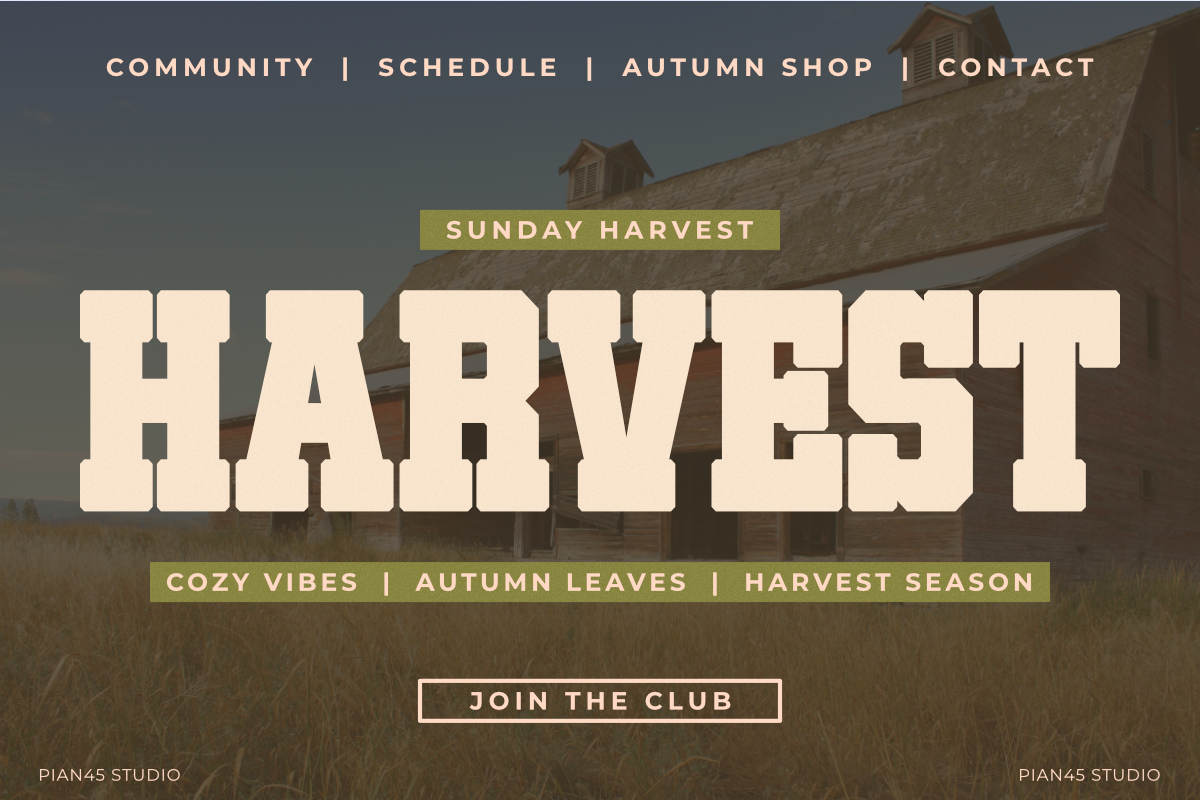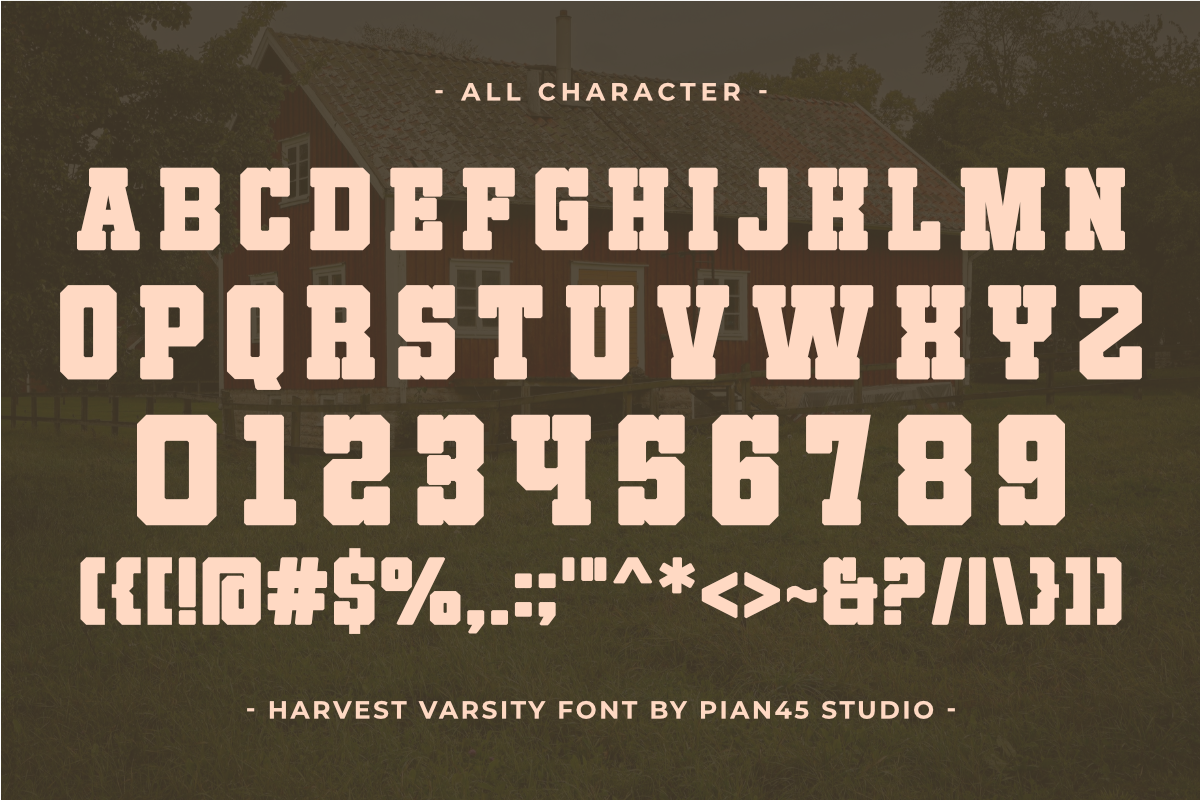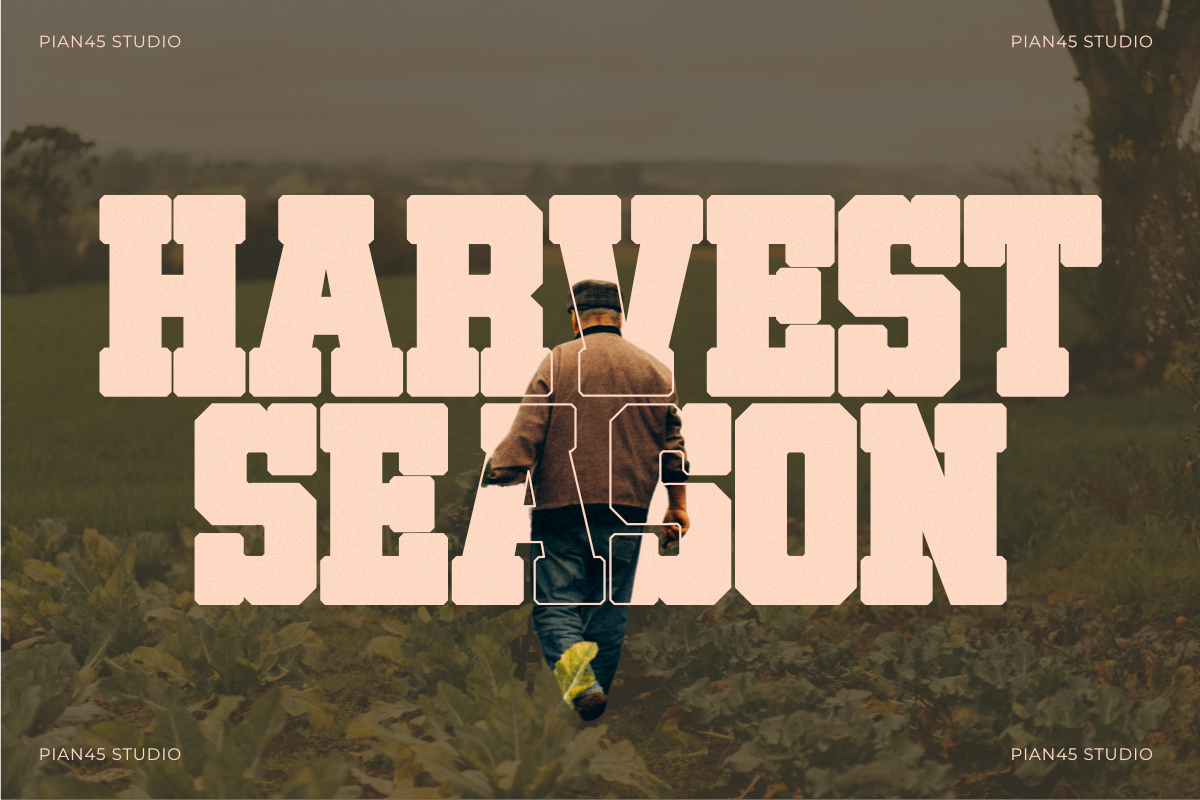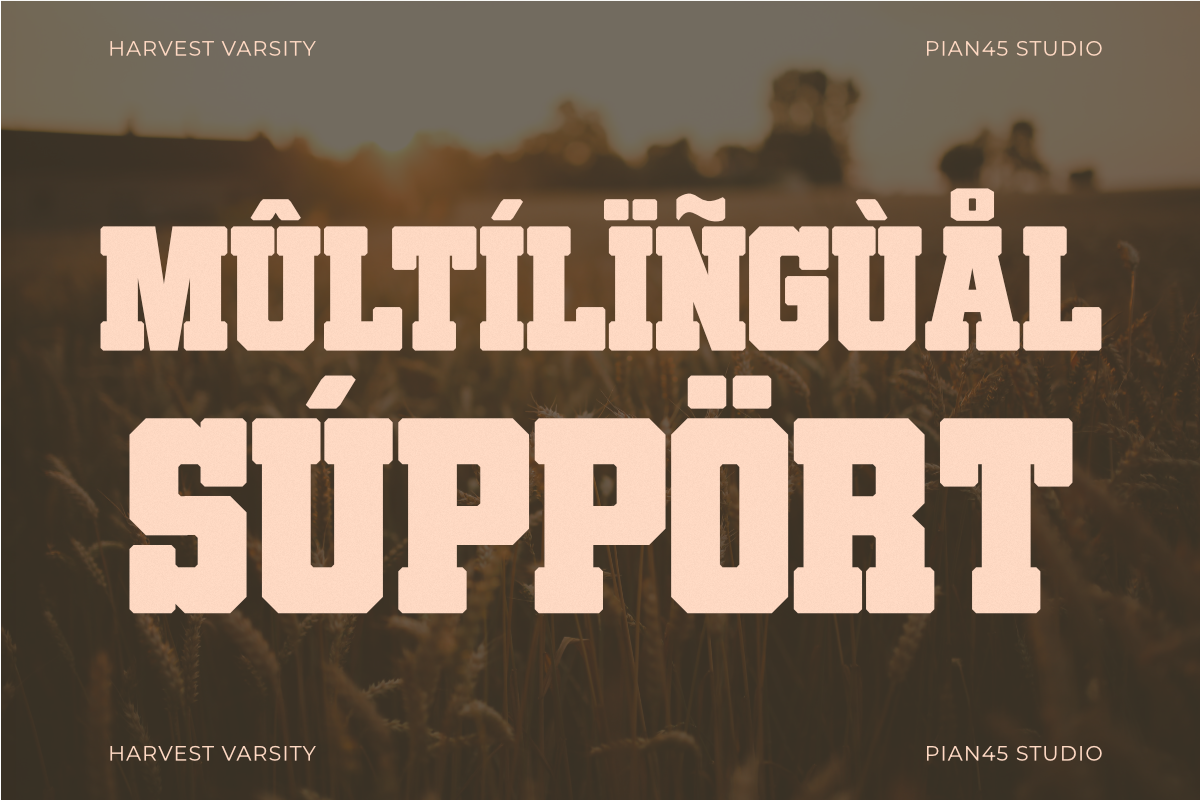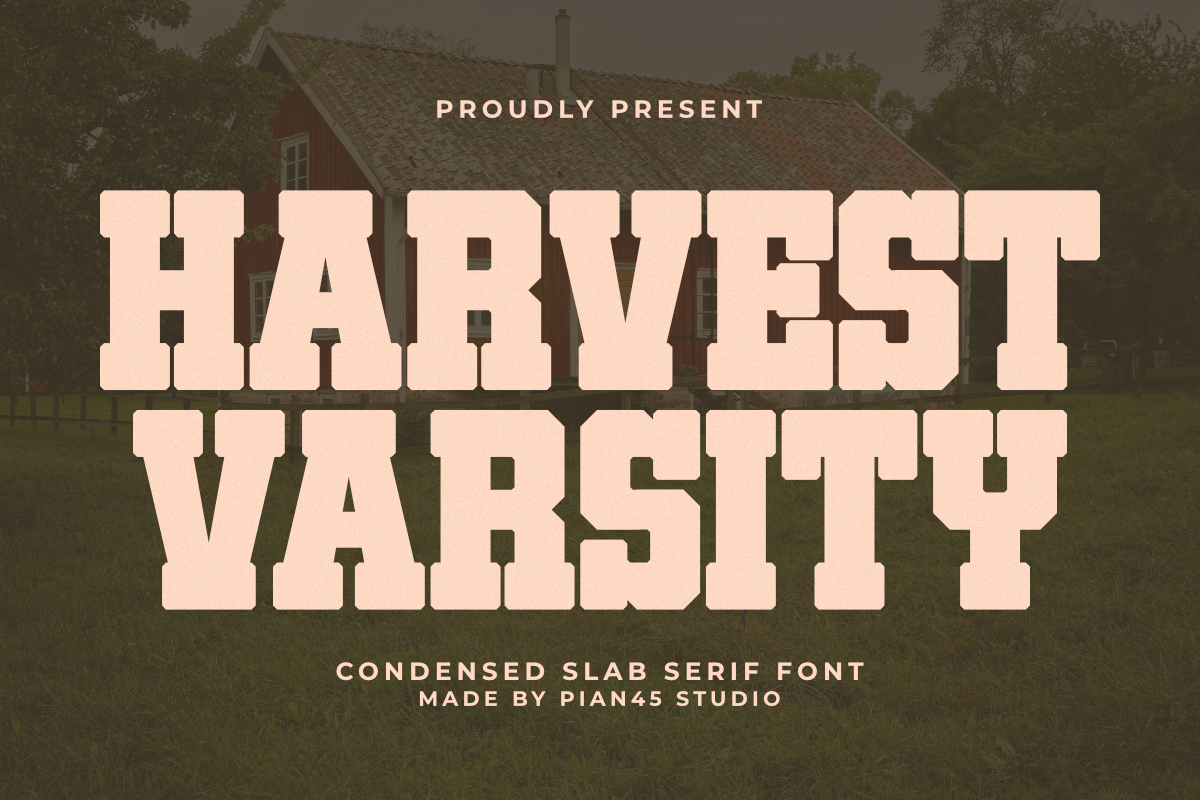
Harvest Varsity - Slab Serif Font
Harvest Varsity is a bold, high-impact Condensed Slab Serif font engineered to blend classic college varsity aesthetics with warm autumn harvest vibes. Featuring strong blocky serif letterforms, athletic chamfered cuts, a space-saving condensed typeface structure, and full multilingual support, this all-caps font is built for varsity athletic branding, Thanksgiving event posters, fall season t-shirts, college sports jerseys, and university alumni merchandise. Its solid structure and commanding visual weight guarantee maximum legibility, making it the perfect choice for high-visibility headlines, custom craft projects, product packaging, and seasonal marketing graphics.